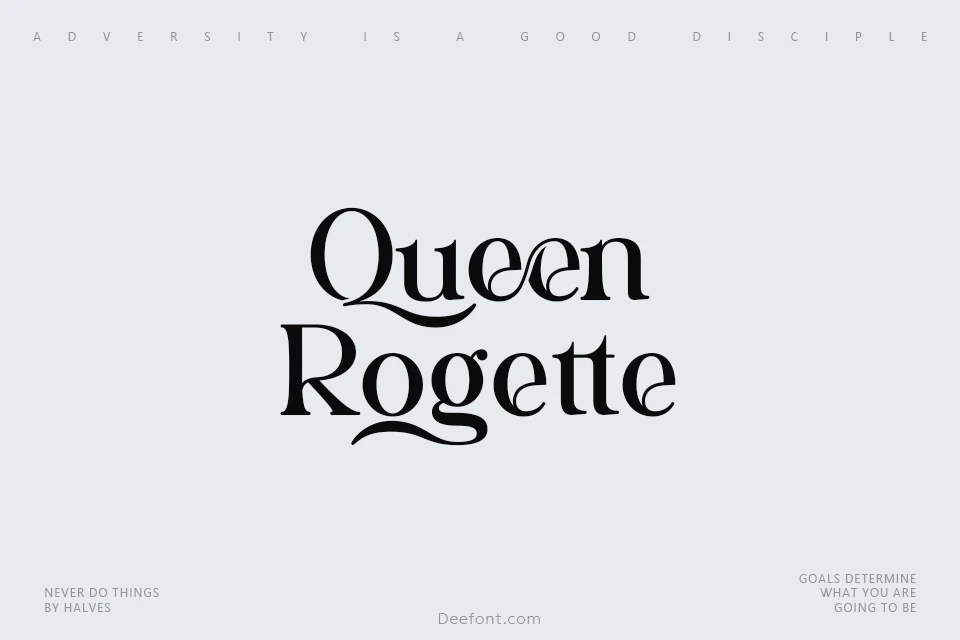
Queen Rogette Font
Queen Rogette Font is a sophisticated modern serif typeface that balances timeless elegance with contemporary design sensibilities. This luxurious font features graceful letterforms with distinctive swash details and refined contrast between thick and thin strokes. The carefully crafted serifs and smooth curves create a flowing rhythm that exudes femininity and confidence. Perfect for fashion editorials, luxury branding, wedding stationery, book covers, and high-end packaging, Queen Rogette commands attention while maintaining exceptional readability. Its versatile character set supports multiple languages and includes stylistic alternates for creative customization. Use Queen Rogette when your design requires a touch of refined glamour with a modern twist that speaks of understated luxury.